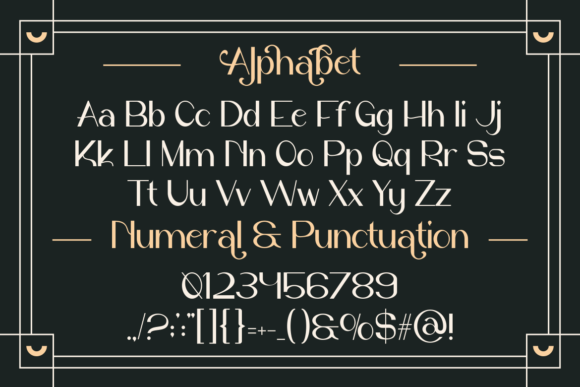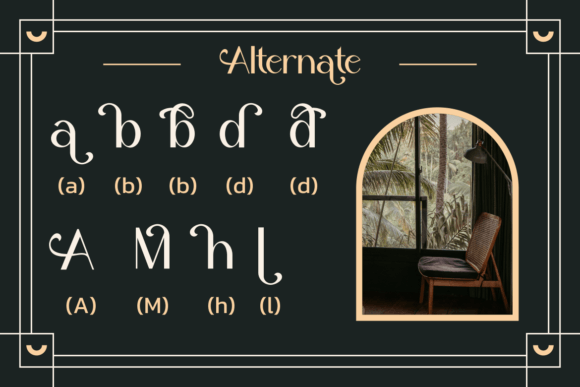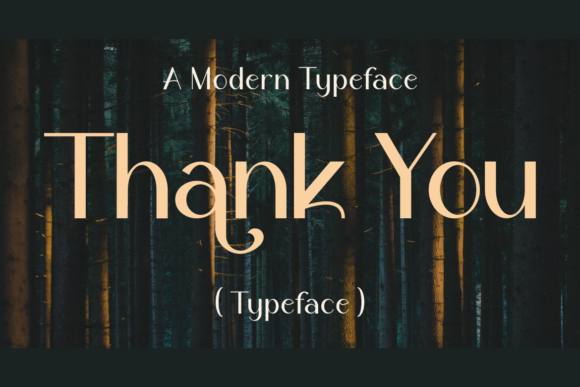
Arabella Font: Elevate Your Designs with a Modern and Bold Display Font
In the world of typography, a font can make or break a design. For designers and crafters looking for a bold and authentic display font, Arabella Font is an excellent choice. This modern font is perfect for any branding project, from logos and t-shirt printing to product design and more. In this article, we’ll dive into the features and benefits of Arabella Font, and explore how it can elevate your designs.
What is Arabella Font?
Arabella Font is a bold and authentic display font designed to make a statement. Its modern and sleek design makes it perfect for designers and crafters looking for a font that can add a touch of sophistication to their projects. The font is versatile and can be used for a wide range of applications, from branding and advertising to packaging and merchandise.
Key Features of Arabella Font
- Bold and Authentic Design: Arabella Font boasts a bold and authentic design that is sure to grab attention. Its modern and sleek lines make it perfect for designs that require a touch of sophistication.
- Versatile: This font is versatile and can be used for a wide range of applications, from branding and advertising to packaging and merchandise.
- Easily Readable: Despite its bold design, Arabella Font is easily readable, making it perfect for designs that require a clear and concise message.
- High-Quality: Arabella Font is a high-quality font that is designed to deliver exceptional results. Its crisp and clean lines ensure that your designs look professional and polished.
Benefits of Using Arabella Font
So, why choose Arabella Font for your designs? Here are just a few benefits of using this modern display font:
- Stand Out from the Crowd: With Arabella Font, you can create designs that stand out from the crowd. Its bold and authentic design ensures that your message gets noticed.
- Professional and Polished: Arabella Font is designed to deliver professional and polished results. Its high-quality design ensures that your designs look exceptional.
- Easy to Use: This font is easy to use and can be easily integrated into your designs. Its versatility makes it perfect for a wide range of applications.
How to Use Arabella Font
Using Arabella Font is easy. Here are a few tips to get you started:
- Choose the Right Size: When using Arabella Font, choose the right size for your design. This will ensure that your message is clear and concise.
- Experiment with Colors: Arabella Font looks great in a variety of colors. Experiment with different colors to find the one that works best for your design.
- Pair with Other Fonts: Arabella Font can be paired with other fonts to create a unique and visually appealing design.
In conclusion, Arabella Font is a modern and bold display font that is perfect for designers and crafters looking for a high-quality font for their branding projects. Its versatility, readability, and high-quality design make it an excellent choice for a wide range of applications. With Arabella Font, you can create designs that stand out from the crowd and deliver professional and polished results.